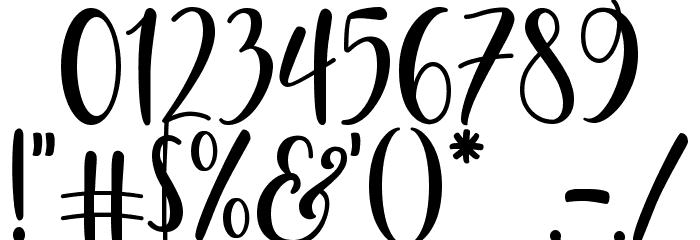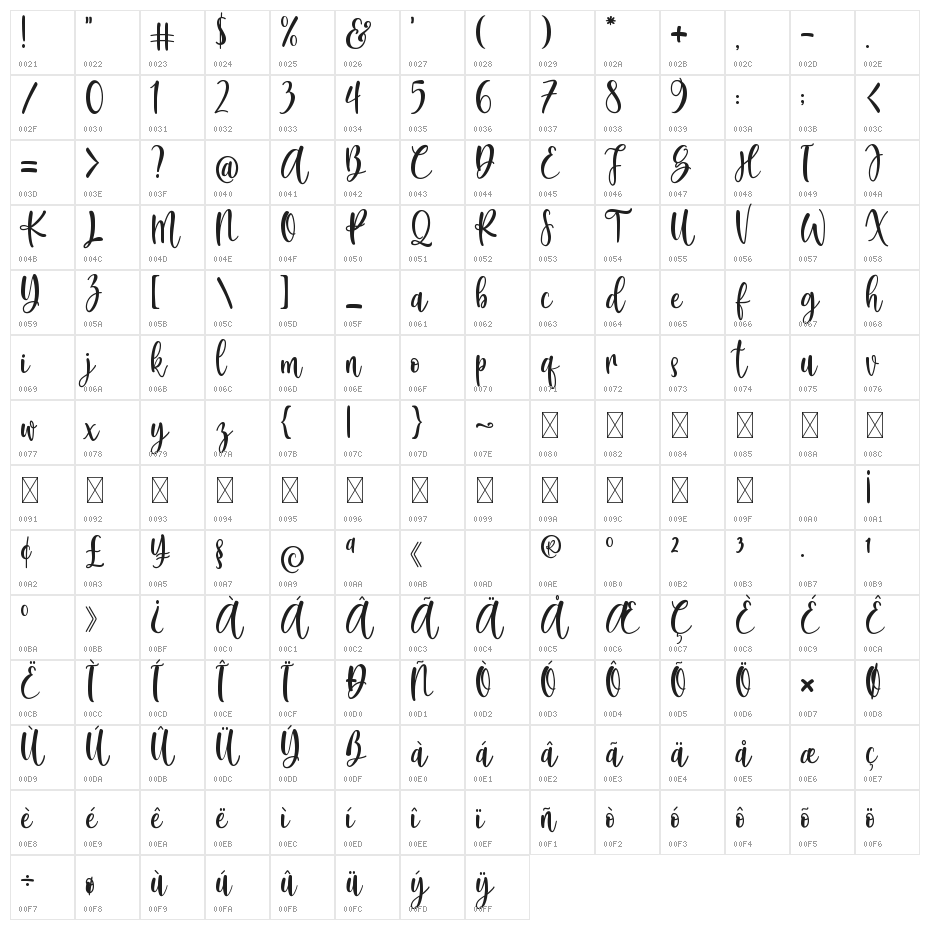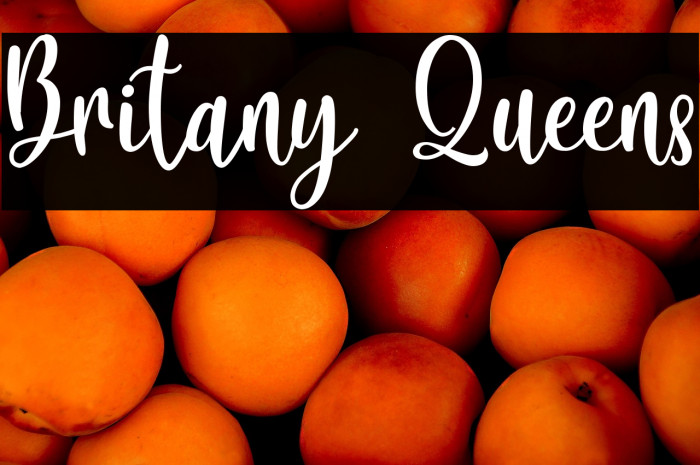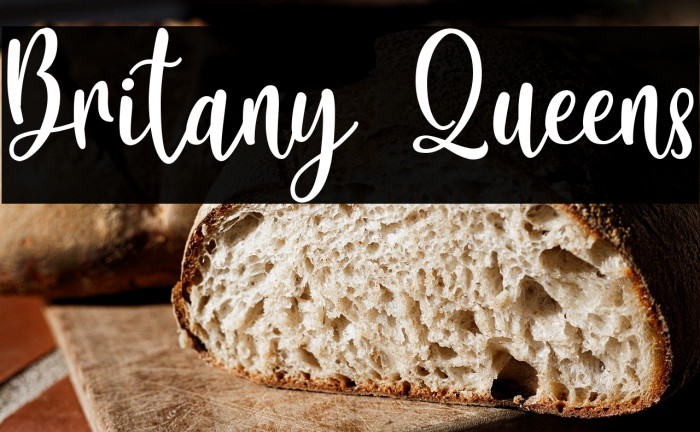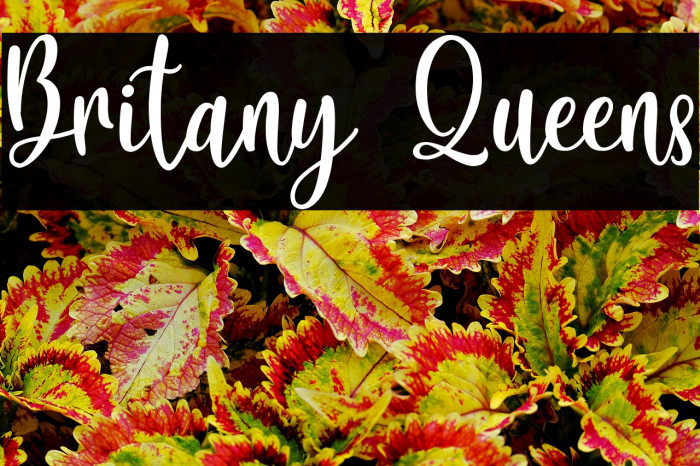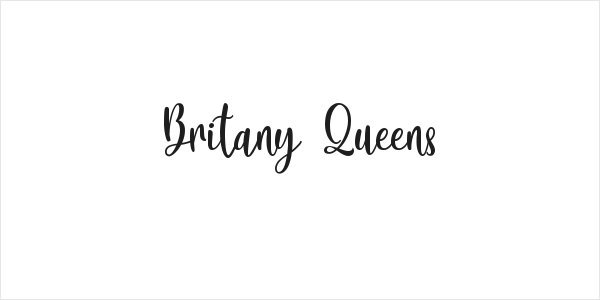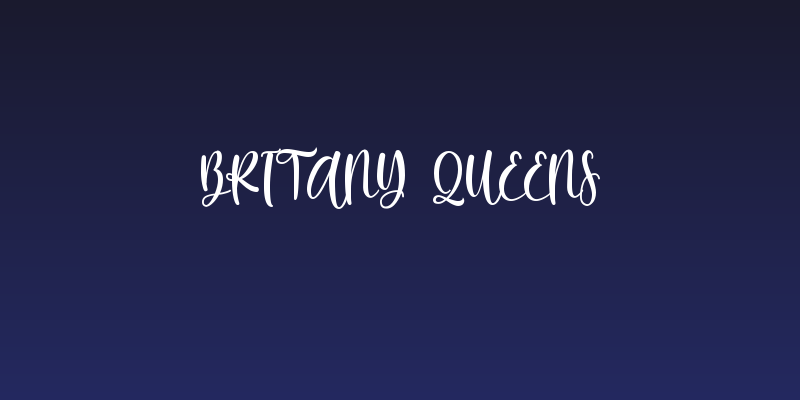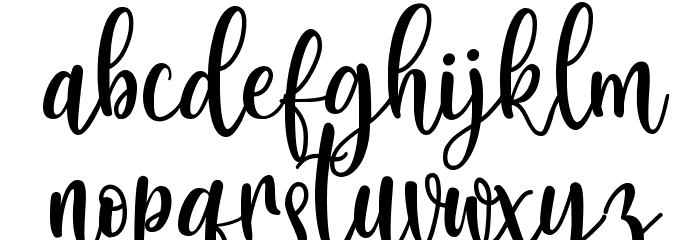
Britany Queens Font
Britany Queens Description
This font exudes a lively and expressive character with its flowing, cursive style. The letters are interconnected, creating a seamless and elegant appearance. The uppercase letters are bold and dynamic, while the lowercase letters maintain a consistent rhythm with playful loops and swashes. The numerals are equally expressive, mirroring the style of the alphabet. Special characters are thoughtfully designed to match the overall aesthetic, making this font versatile for various creative applications. Its handwritten quality adds a personal touch, making it suitable for projects that require a warm and inviting feel.